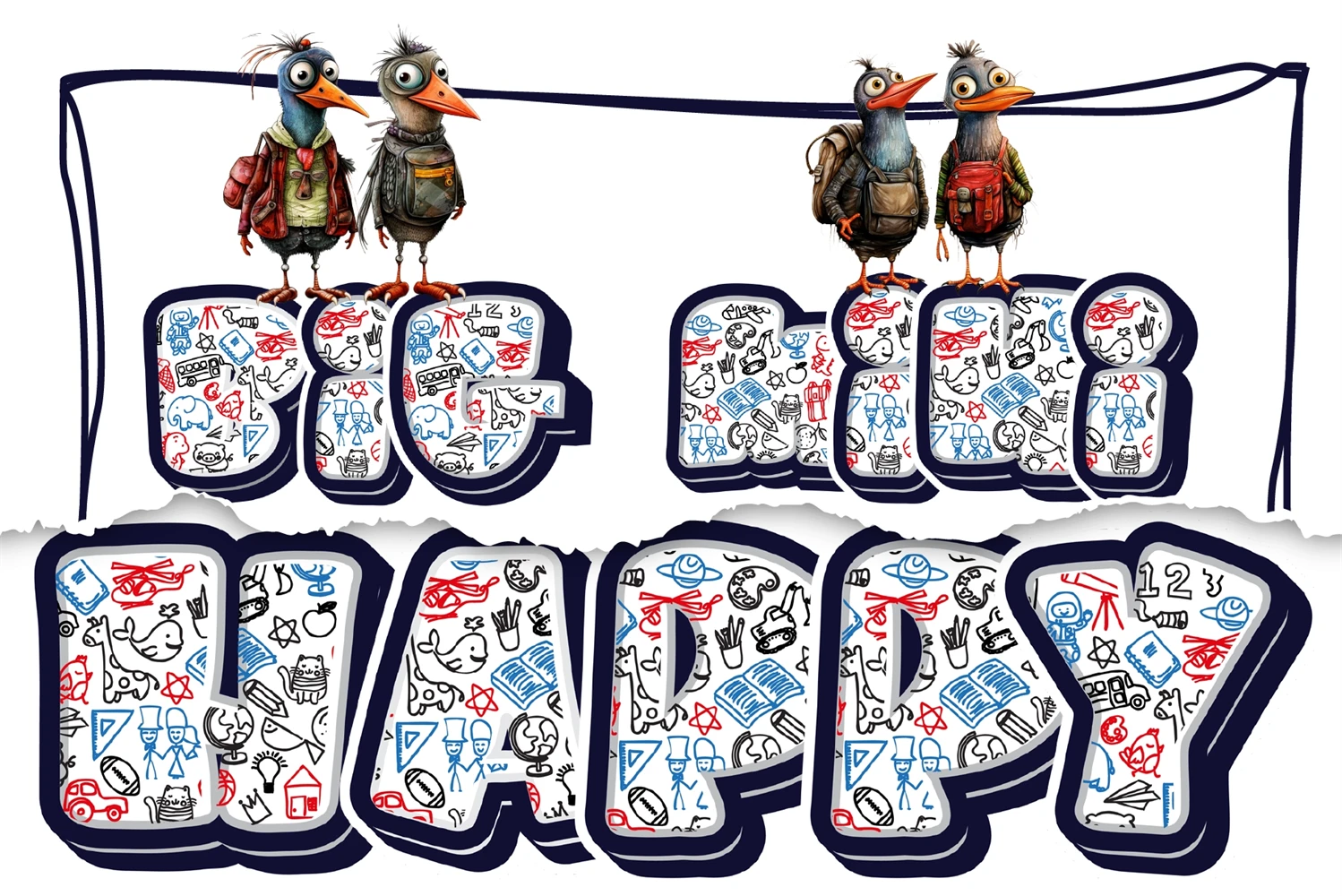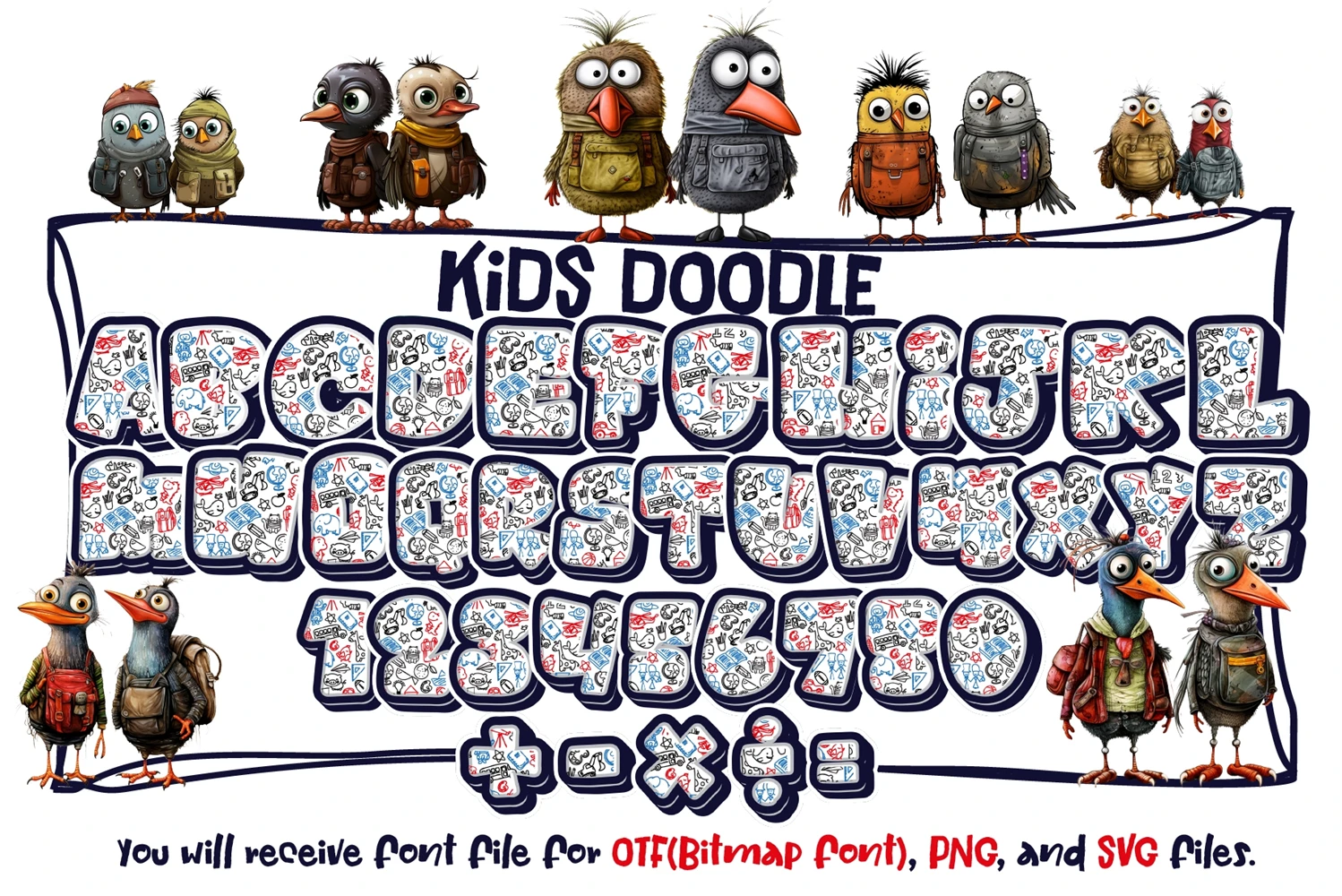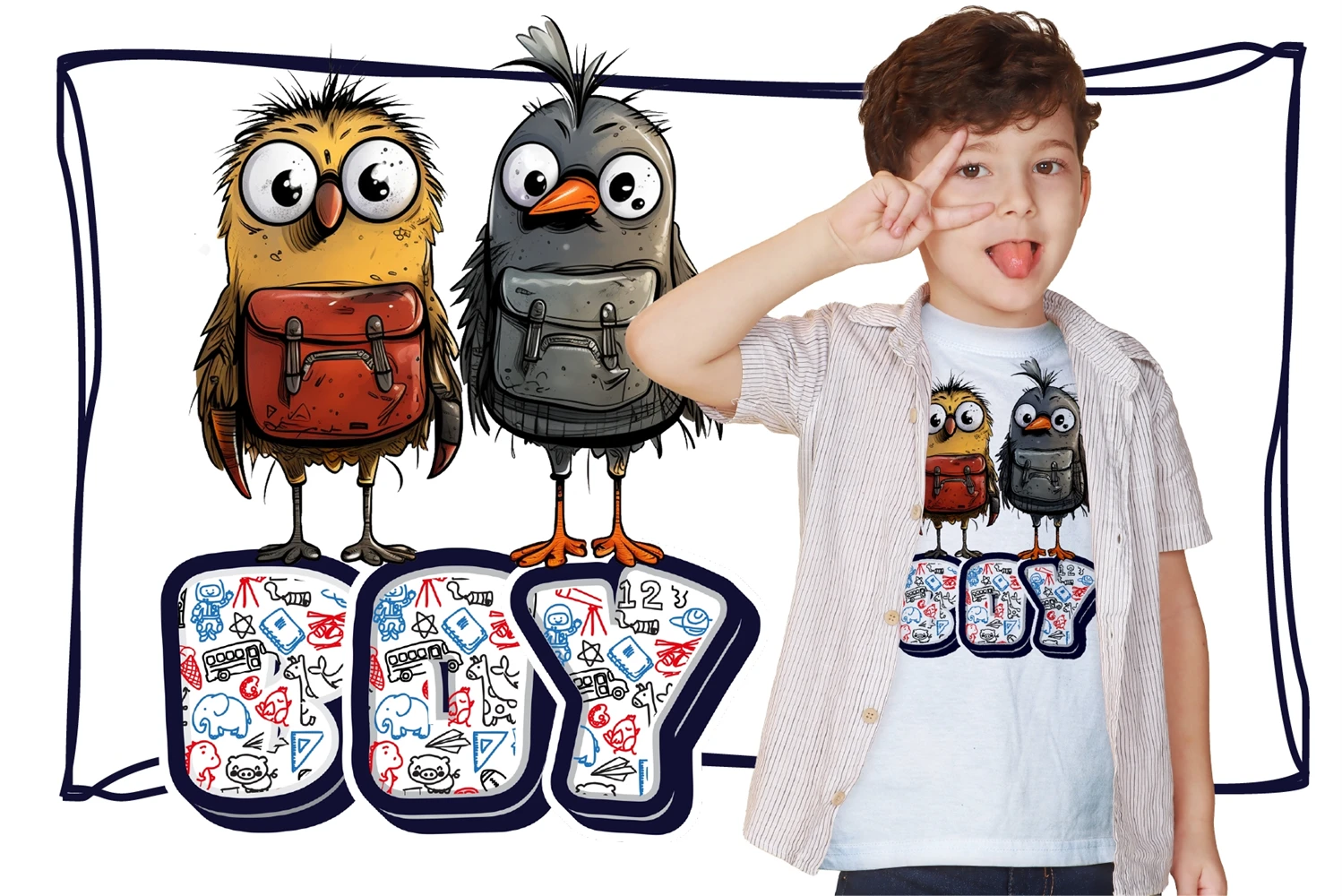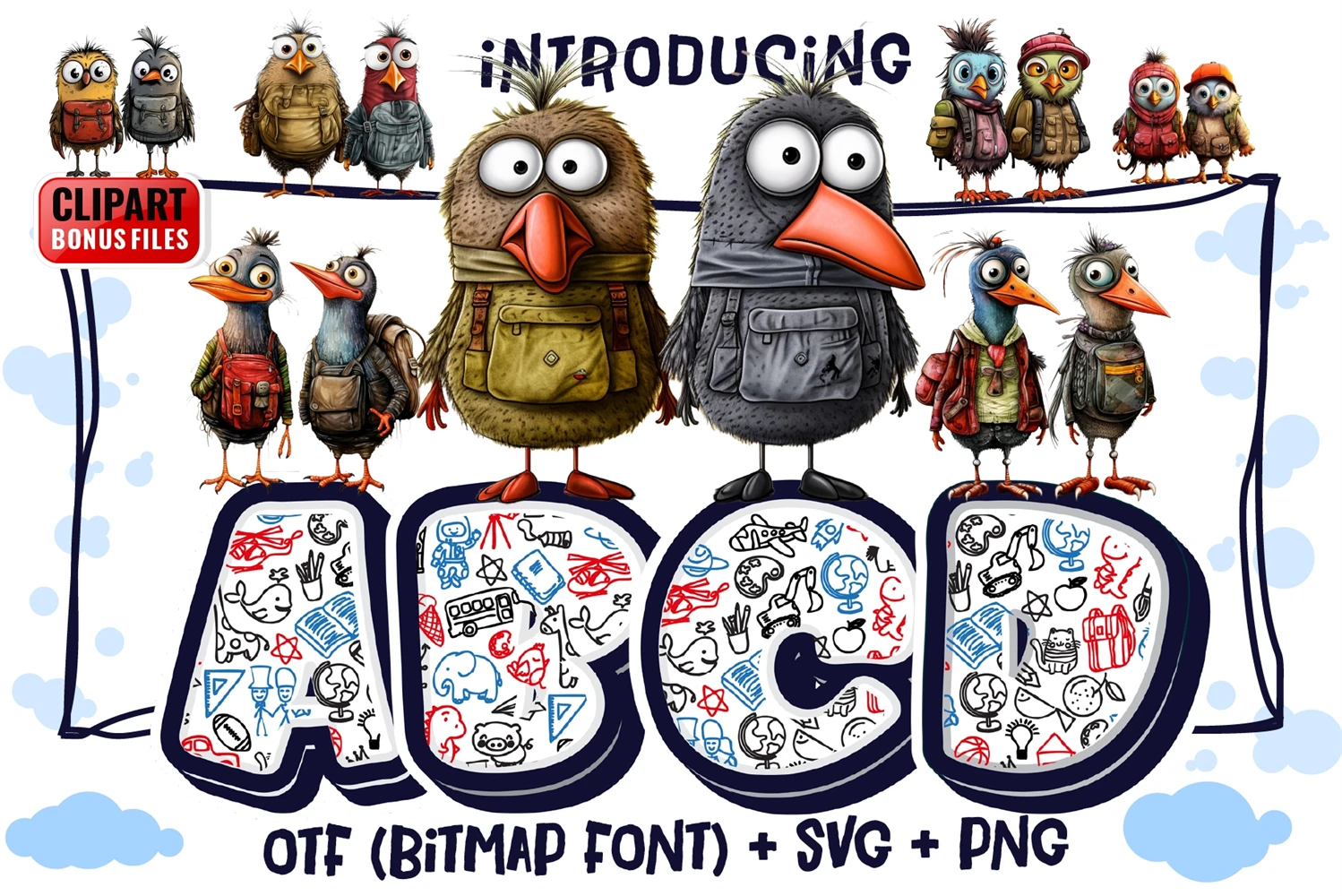
The Kids Doodle font bursts with playful, hand-drawn charm. Each letter looks like it was crafted by a child with boundless imagination, featuring thick, bold lines and delightful embellishments like stars and hearts. Perfect for children's projects, birthday invites, or anything needing a touch of whimsy, this font brings a sense of joy and creativity to every word.